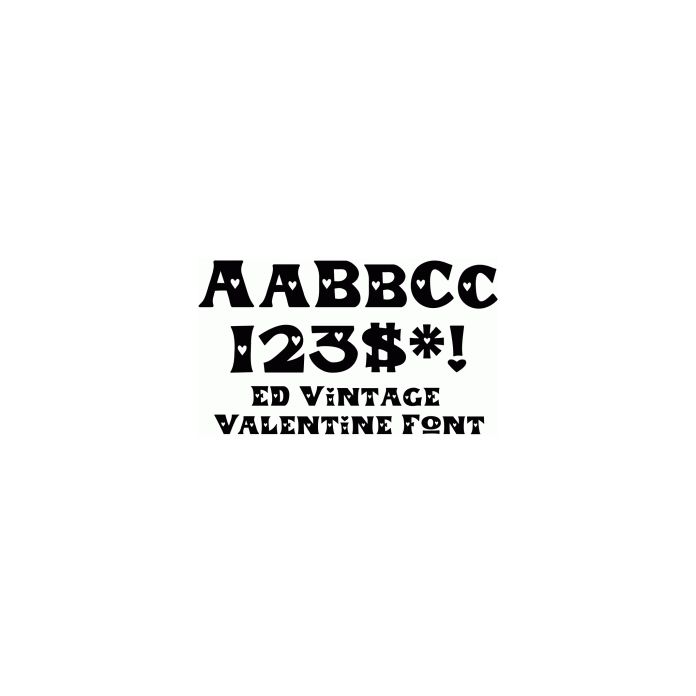
ED Vintage Valentine font is a bold display typeface with a nice handcrafted feel and a sweet whimsical heart detail.
Please note that this font includes a full set of uppercase letters, numbers, basic punctuation, and a full set of "small caps" in place of regular lowercase letters.